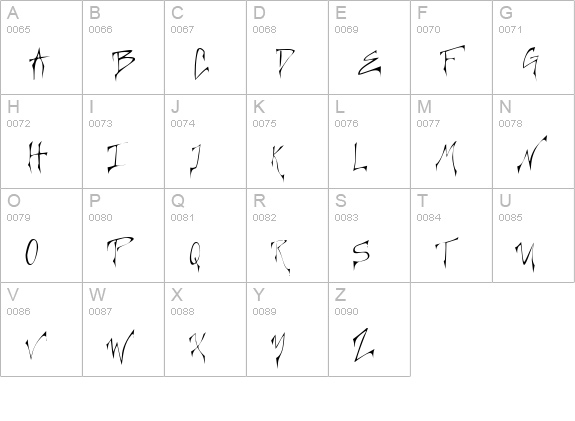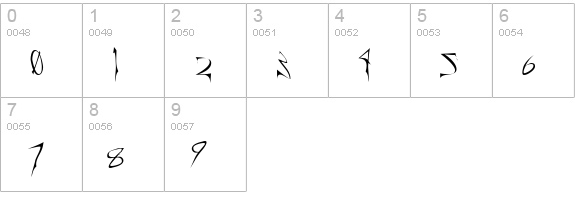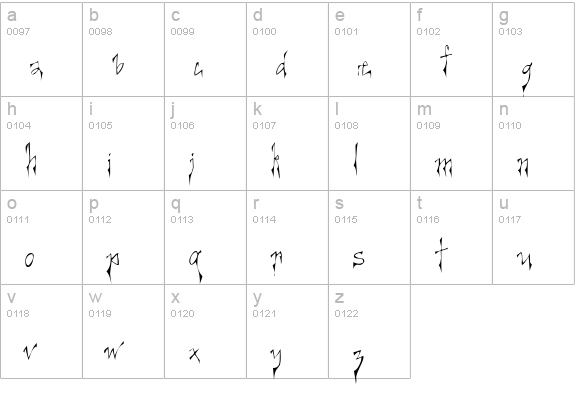
Creepygirl Light Font Details
Creepygirl Light is a refined, elegant variant in the Creepygirl typeface family \xE2\x80\x94 well suited to elegant body text, refined sub-headings, and luxury branding.
Creepygirl Light font is an eerie and haunting typeface that exudes a mysterious charm. Its delicate and slender letterforms evoke a sense of intrigue and darkness, making it perfect for adding a touch of spookiness to your designs. This font is ideal for Halloween-themed projects, horror movie posters, and gothic-inspired designs. The best part? Creepygirl Light font is available for free download at FontsMarket.com. Embrace the dark side and bring a creepy twist to your creations with this captivating and captivating typeface. Let your imagination run wild with the chilling vibes of Creepygirl Light font.